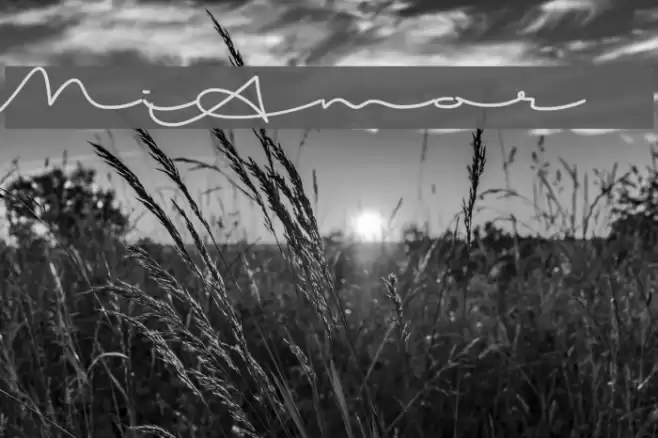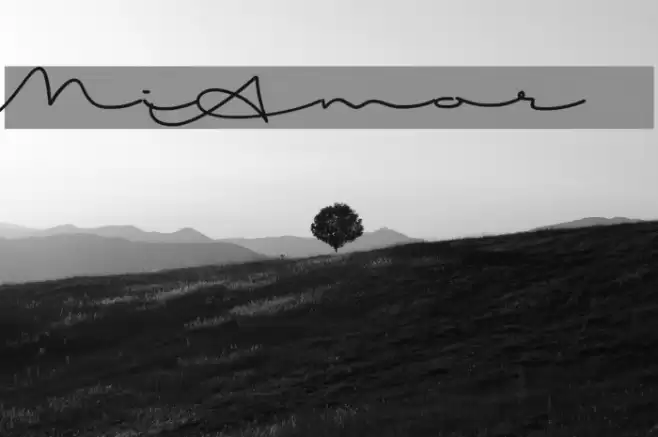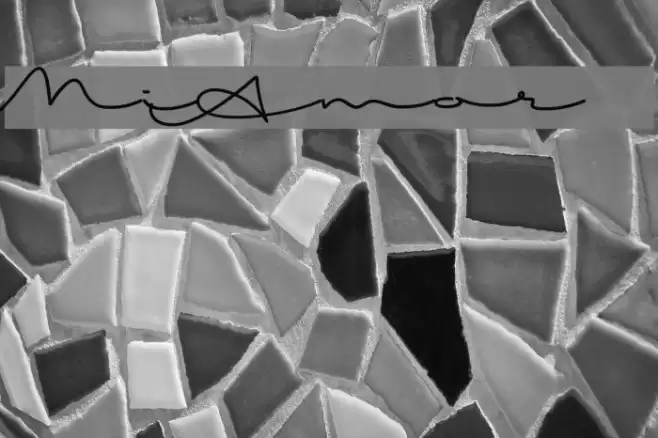
MiAmor Font
MiAmor Description
This font features a delicate and flowing script style, characterized by its elegant and continuous strokes. The letters are interconnected, creating a seamless and graceful appearance. The uppercase letters maintain a consistent height, while the lowercase letters exhibit a slight slant, adding to the fluidity of the design. The font's thin lines and gentle curves give it a sophisticated and romantic feel, making it ideal for projects that require a touch of elegance and charm. The overall design is reminiscent of handwritten calligraphy, with a modern twist that enhances its visual appeal.
A delicate and flowing script font with elegant, interconnected strokes from Handwritten fonts.
- Proposed Projects: Ideal for wedding invitations, greeting cards, branding, and romantic-themed designs.
- Weight: Light
- Character Spacing: Tight
- Overall Style: Romantic
- Use Case: Logos, Invitations, Decorative text